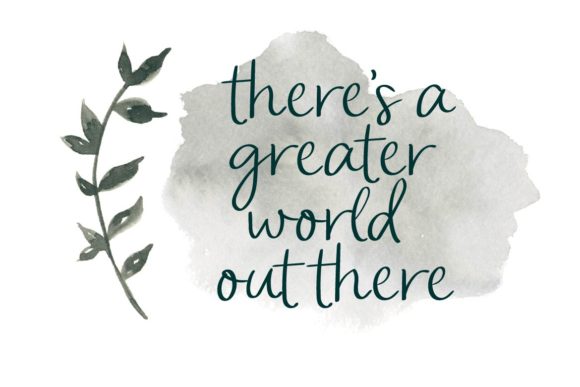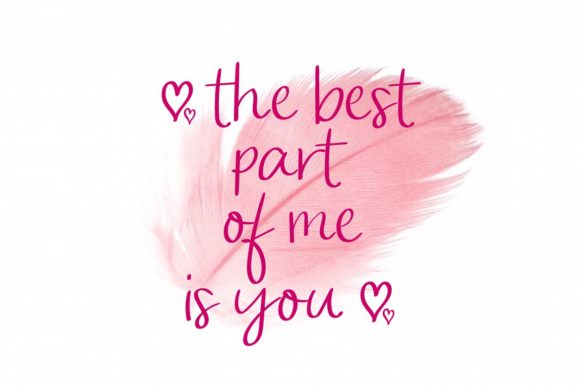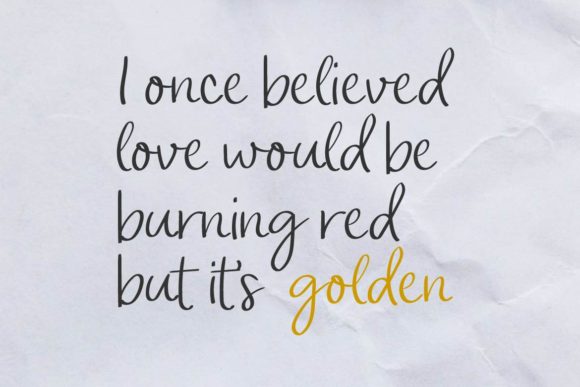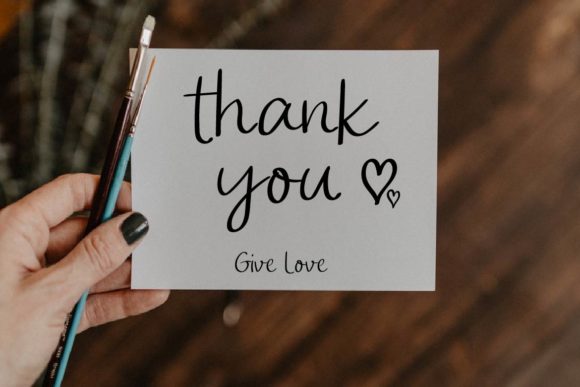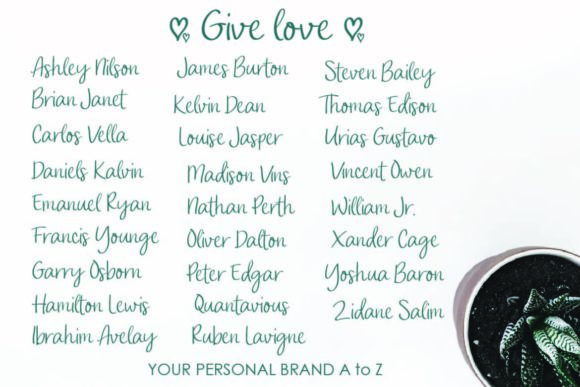
Give Love Font
About Give Love Font
Give Love is a sweet and modern handwritten font. It maintains its classy calligraphic influences while feeling contemporary and fresh. This versatility will appeal to a wide range of crafty ideas, from letterheads and titles, to stationery. Whether you’re looking for fonts for Instagram or calligraphy scripts for DIY projects, Give Love will turn any creative idea into a true piece of art!